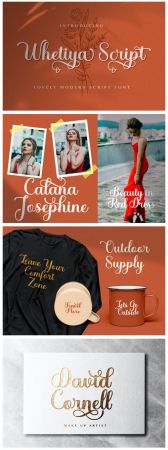
Whetiya is a beautiful handwritten font with a romantic feel. Use it to create gorgeous wedding invitations, beautiful stationary art, eye-catching social media posts and much more!
This font is PUA encoded which means you can access all of the glyphs and swashes with ease!